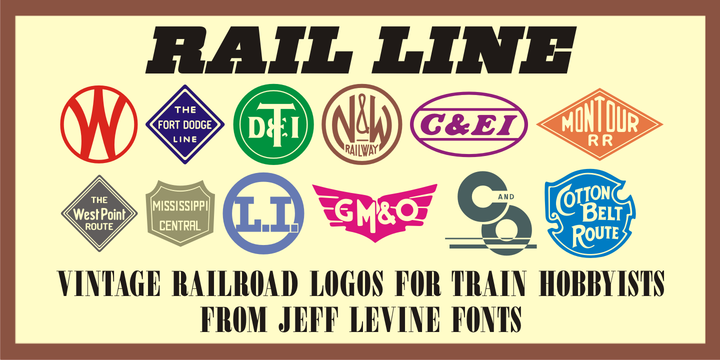
Rail Line JNL
by Jeff Levine
The Rail Line JNL Font Family was designed by Jeff Levine and published by Jeff Levine. Rail Line JNL contains 1 styles. More about this family
Rail Line JNL is a font for the railroad enthusiast for making their own model train car emblems. The logos contained in this font are or may be the property of the various rail companies, their assigns and/or successors. Outside of non-profit hobby use or for historical/educational purpose under the Fair Use rules, any commercial application of these logos must be obtained by written permission by the respective logo owner or owners. Jeff Levine fonts provided Rail Line JNL strictly as a hobby font. We assume no liability for the use, misuse or misrepresentation of any of the logos contained within the font file.